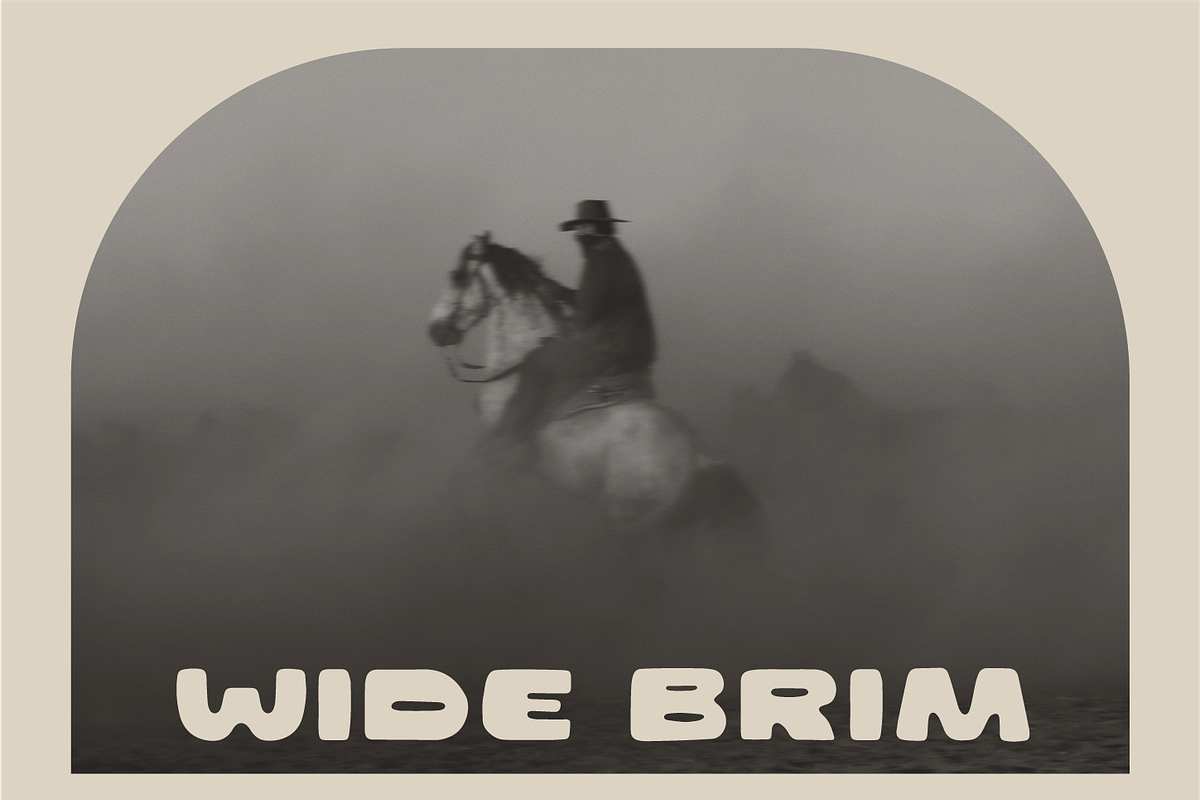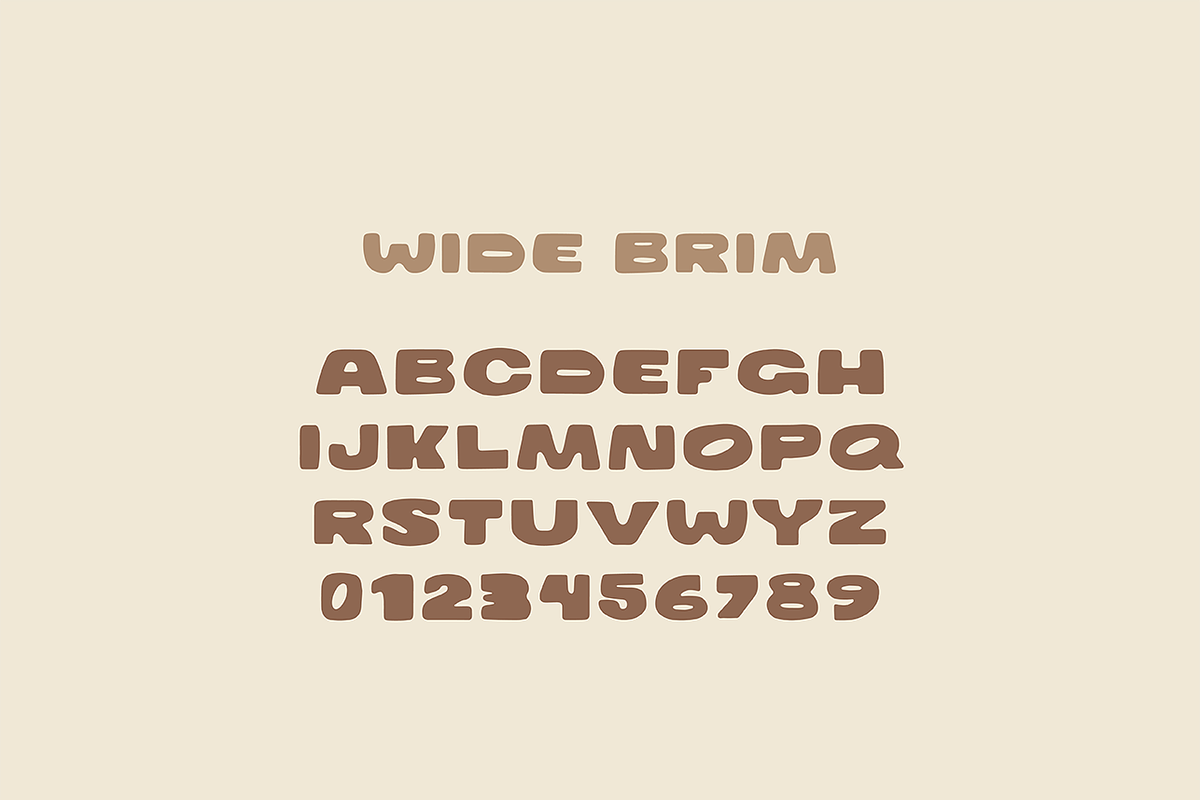
A wide display font – perfect for bold statements. I was inspired by dramatically wide letters. They’re just…fun. This typeface definitely is best for short and sweet statements. Use it for a logo mark, titles, band posters, and more. And if you use it, please send it to me so I can hype you up.